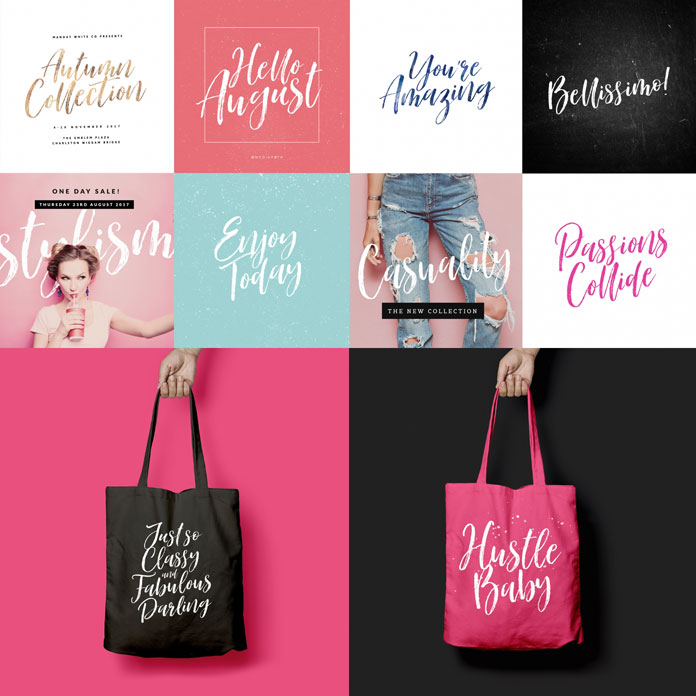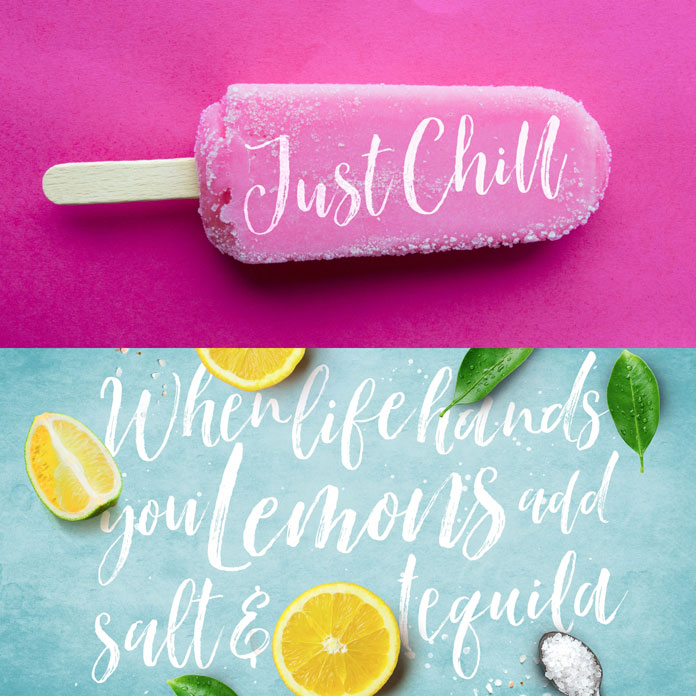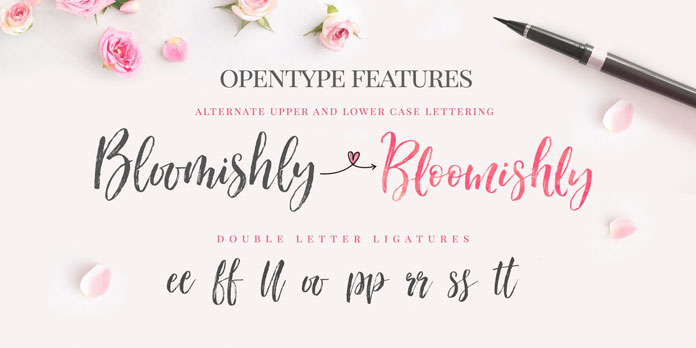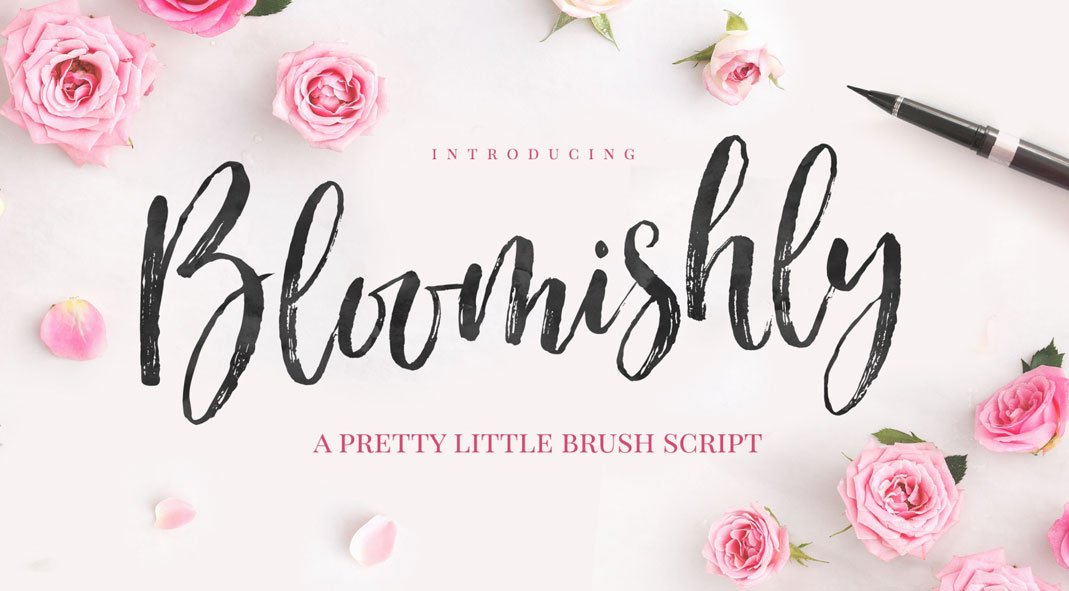
The Bloomishly font, a new brush script typeface in two weights by Nicky Laatz.
Designed and published by Cape Town, South Africa based graphic and type designer Nicky Laatz, Bloomishly is a new brush script font for multi purpose. Whether simple quotes or extensive branding projects, this typeface will make your typographic work look outstanding. With its voluptuous, bouncy appearance, the Bloomishly typeface has a flirtatious nature. The authentic and welcoming style is based on a natural handwriting. Feel free to get more details below or click on the following link.
Some of Bloomishly’s main features.
Based on a natural handwriting style, the font comes in two weights (Regular and Broad plus matching Italics for each weight). Furthermore, Nicky Laatz has equipped the typeface with numerous OpenType features including double letter ligatures as well as alternate uppercase and lowercase letters. Please note, Bloomishly is currently available as introductory offer on Fontspring (only for a limited time)! To get a closer look, please follow the link below.